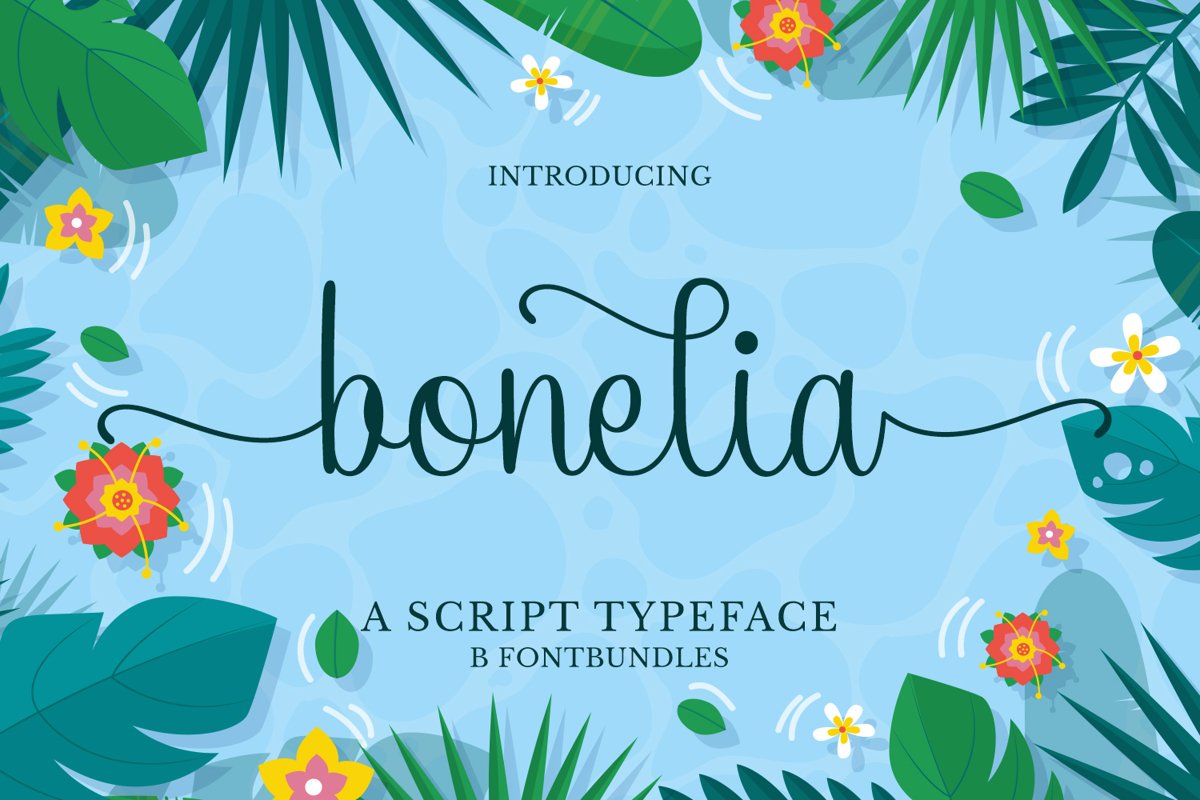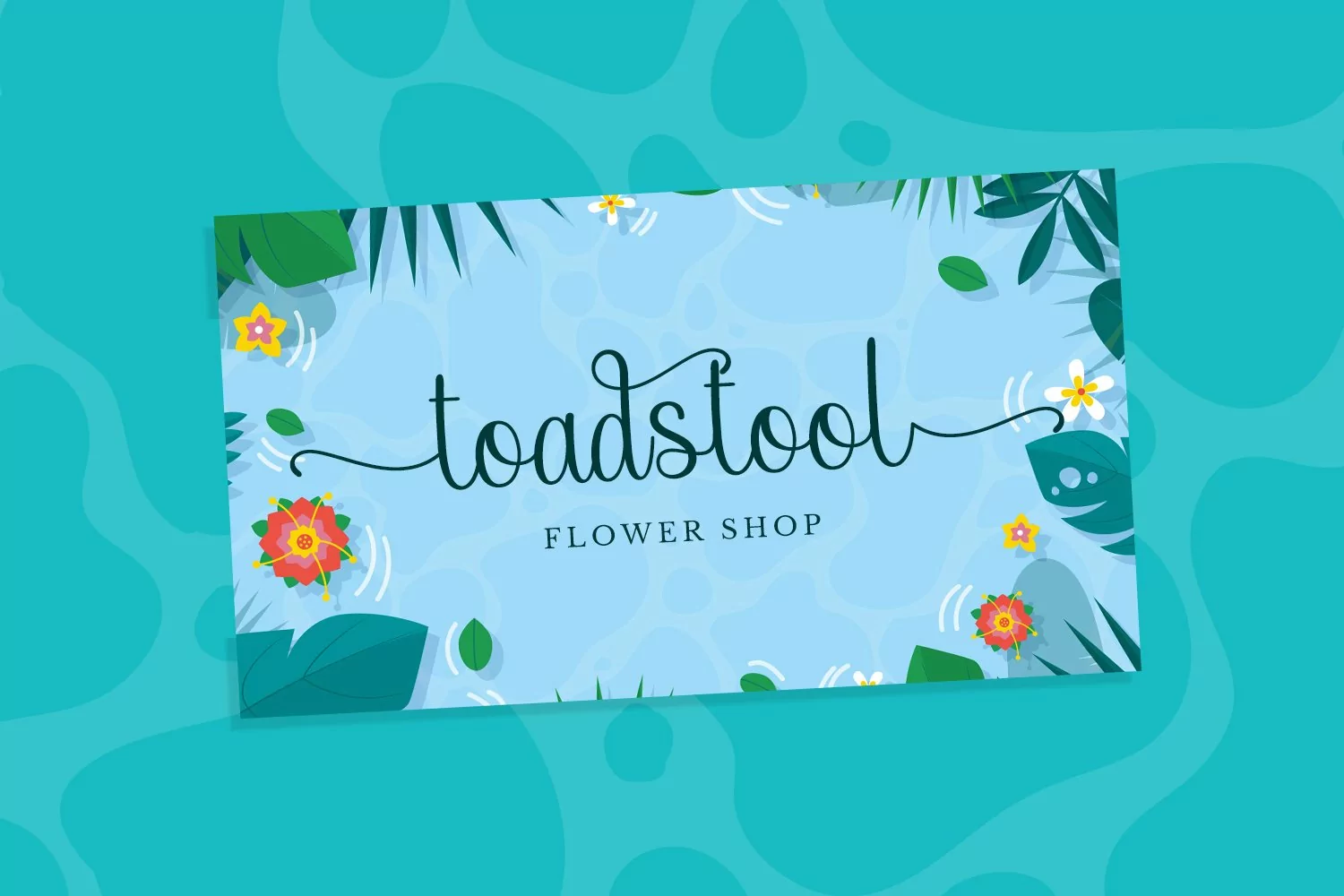
Bonelia
Bonelia is a script typeface. Perfect for display, quotes, wedding needs, florist needs, logo, logotype, badges, header, tittle, packaging, merchandise, t-shirt and many more.